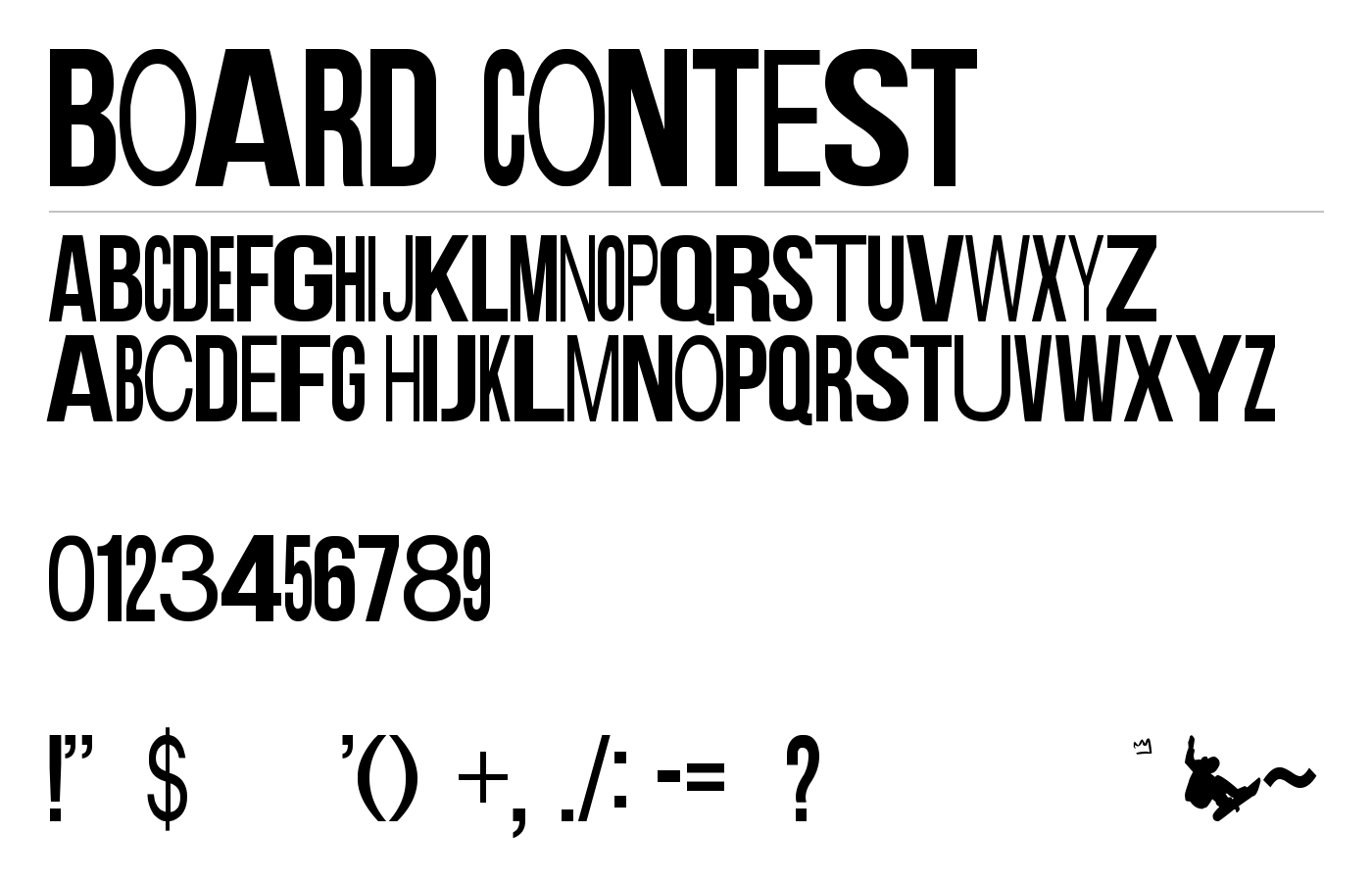
Board Contest is a bold, condensed sans serif font with a high contrast between thick and thin strokes, giving it a strong and dynamic appearance. Its tall, narrow letterforms and clean lines make it ideal for impactful headlines and branding that demand attention, especially in sports, urban, or modern themes. This font works best where a bold, energetic, and contemporary style is needed to stand out.
Board Contest Font
About Board Contest Font